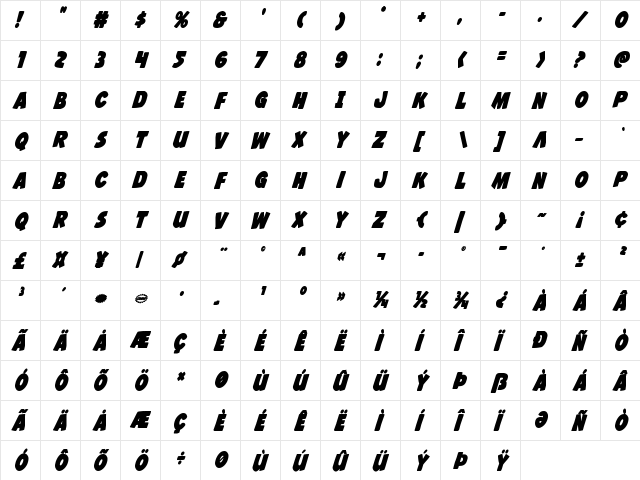
Jack's Candlestick Bold Condensed Font Preview
Design Context for Jack's Candlestick Bold Condensed Typeface
Jack's Candlestick Bold Condensed offers clean, dependable letterforms without strong stylistic allegiance, making it a practical choice for designers who need flexibility. The heavy weight commands attention and anchors typographic hierarchies. Its narrow stance lets it pack a punch even in space-constrained designs.